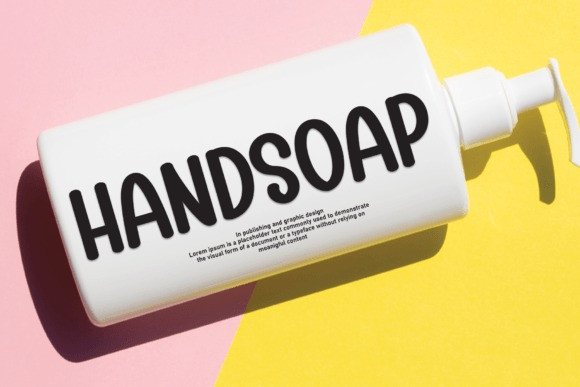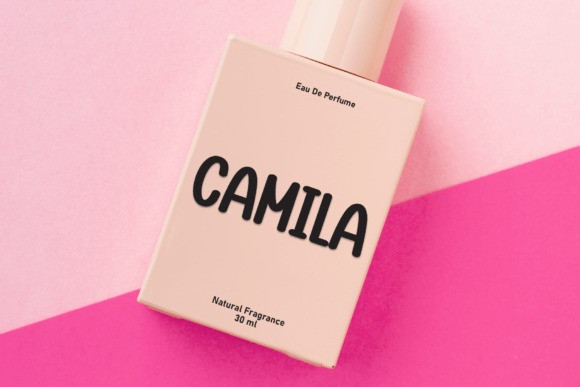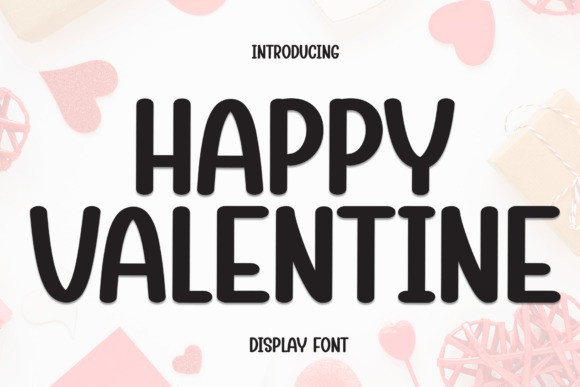
Happy Valentine Type
Happy Valentine Type is an enchanting display font. This versatile font has a wide spectrum of applications ranging from greeting cards to headlines and is guaranteed to add a friendly feel to your next project.